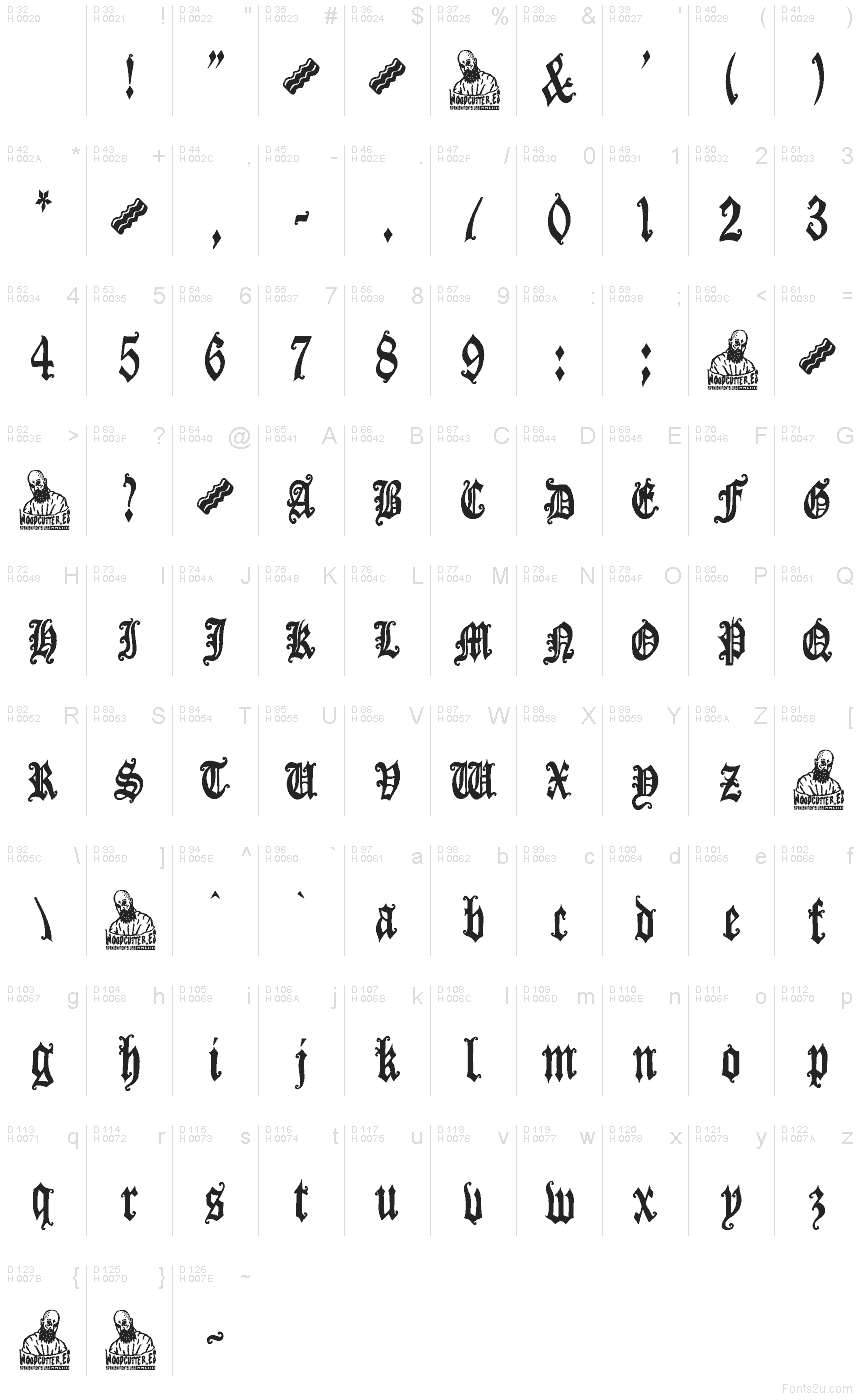
Gothic Panceta
Gothic Panceta font by Woodcutter is a gothic, medieval, condensed font that presents itself as a classic and sophisticated typography. The style of this text is beautifully ornate and mysterious with unusual shapes and gorgeous ornaments. Some might also get an artistic futuristic vibe despite the clear emphasis on classic Gothic designs and formal elegance.